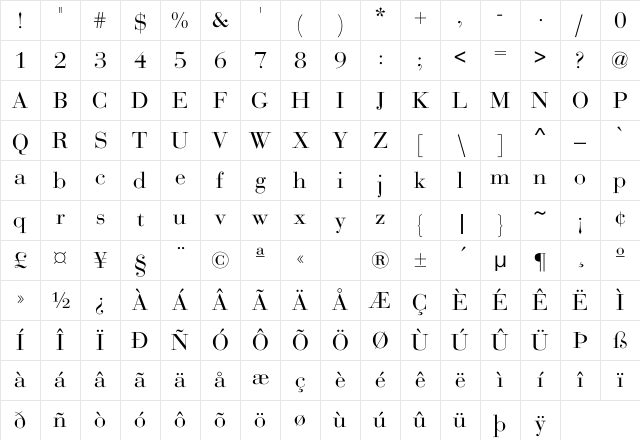
Narragansette Regular
Design Context for Narragansette
Narragansette is a composed and adaptable typeface that performs quietly and consistently across a wide range of design contexts.